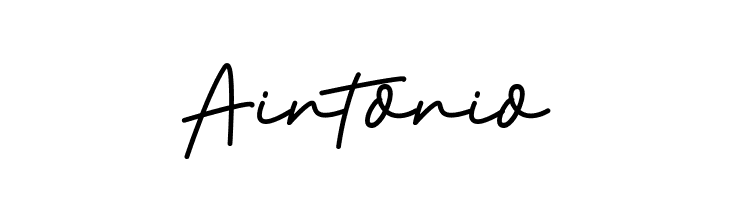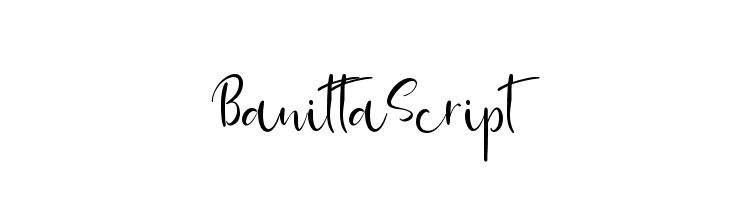
A dynamic and expressive handwritten font with fluid, cursive strokes.
A bold, jagged font with a horror-themed, dripping effect.
A pixelated, retro-style font with a blocky, digital appearance.
A bold, elegant script font with flowing, cursive letterforms.
A bold, wide, and blocky font with a modern geometric style.
A lively and energetic handwritten font with fluid strokes.
A geometric, angular font with a futuristic, digital aesthetic.
A playful and elegant script font with a handwritten appearance.
A graceful, cursive script font with elegant, flowing lines.
A modern italic font with smooth curves and a dynamic appearance.